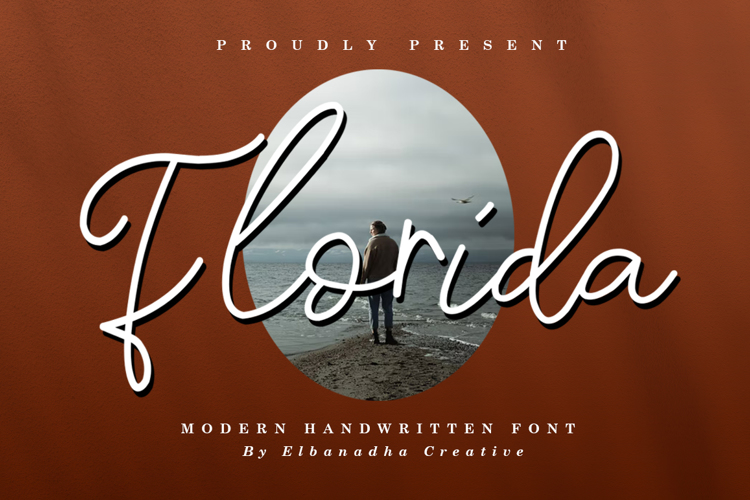
FLORIDA Font
Florida Font is perfect for branding projects, logo, wedding designs, social media posts, advertisements, product packaging, product designs, label, photography, watermark, invitation, stationery and any projects that need handwriting taste.